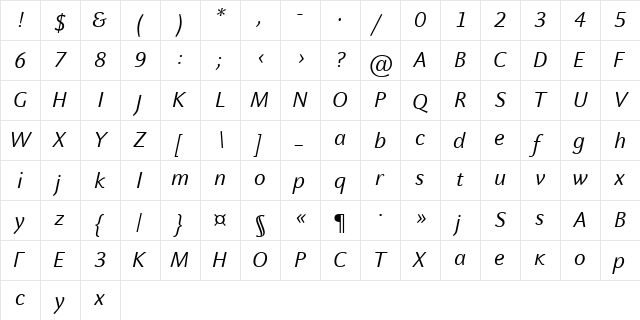
CelesteSans Italic
| Foundry | Christopher Burke |
| Designer | Christopher Burke |
Design Context for CelesteSans Typeface
CelesteSans takes a measured approach to typography — its balanced proportions and neutral character make it a reliable workhorse for both digital and print work. The slanted form adds forward momentum and visual energy.